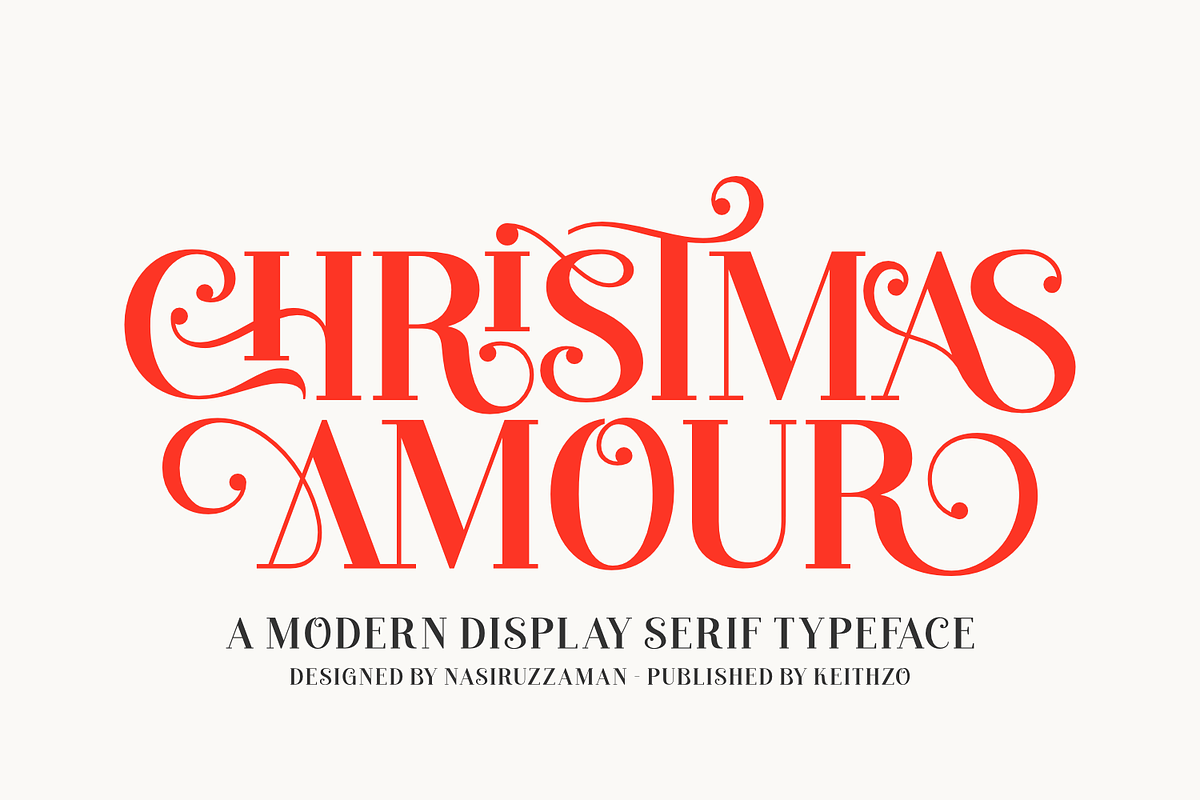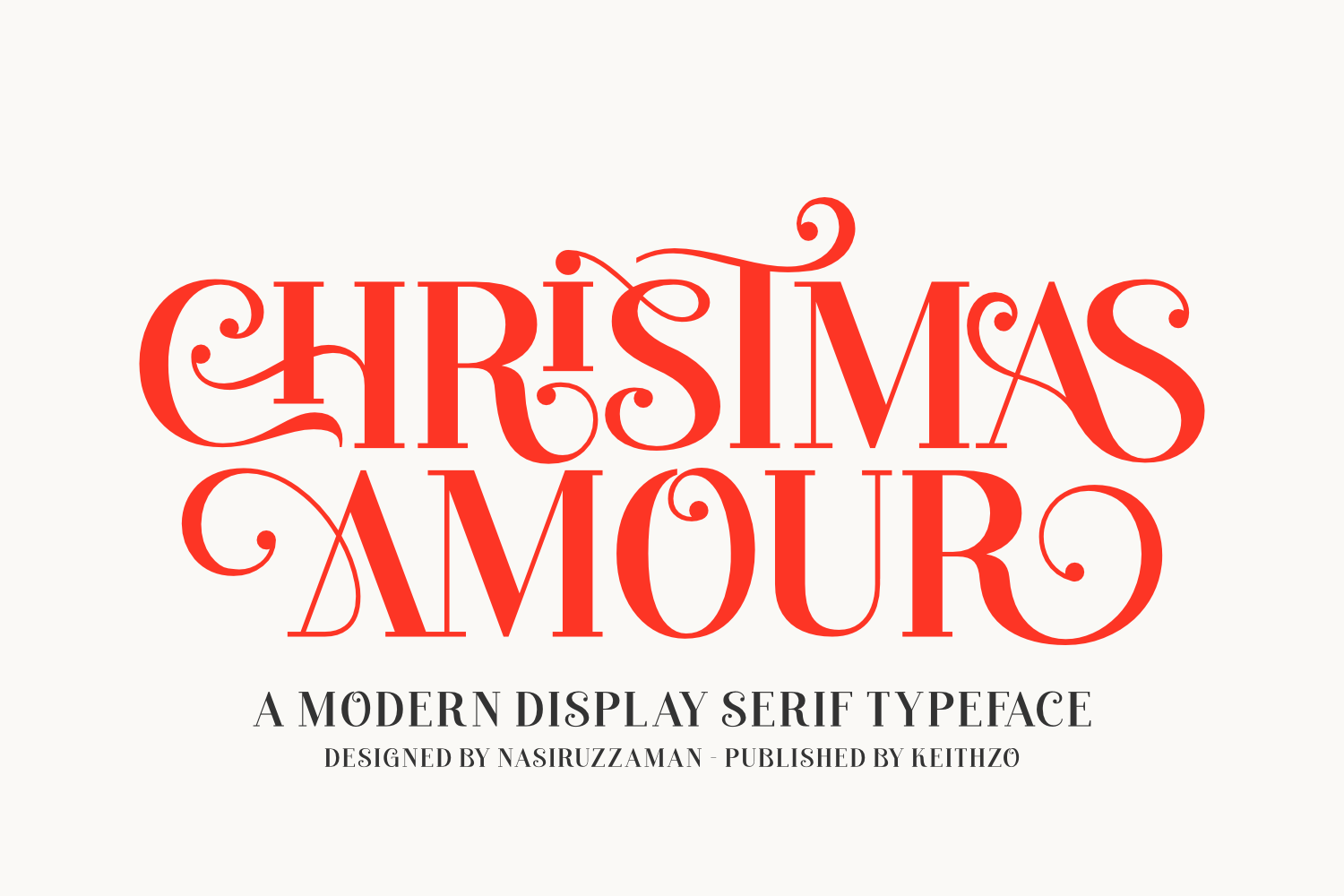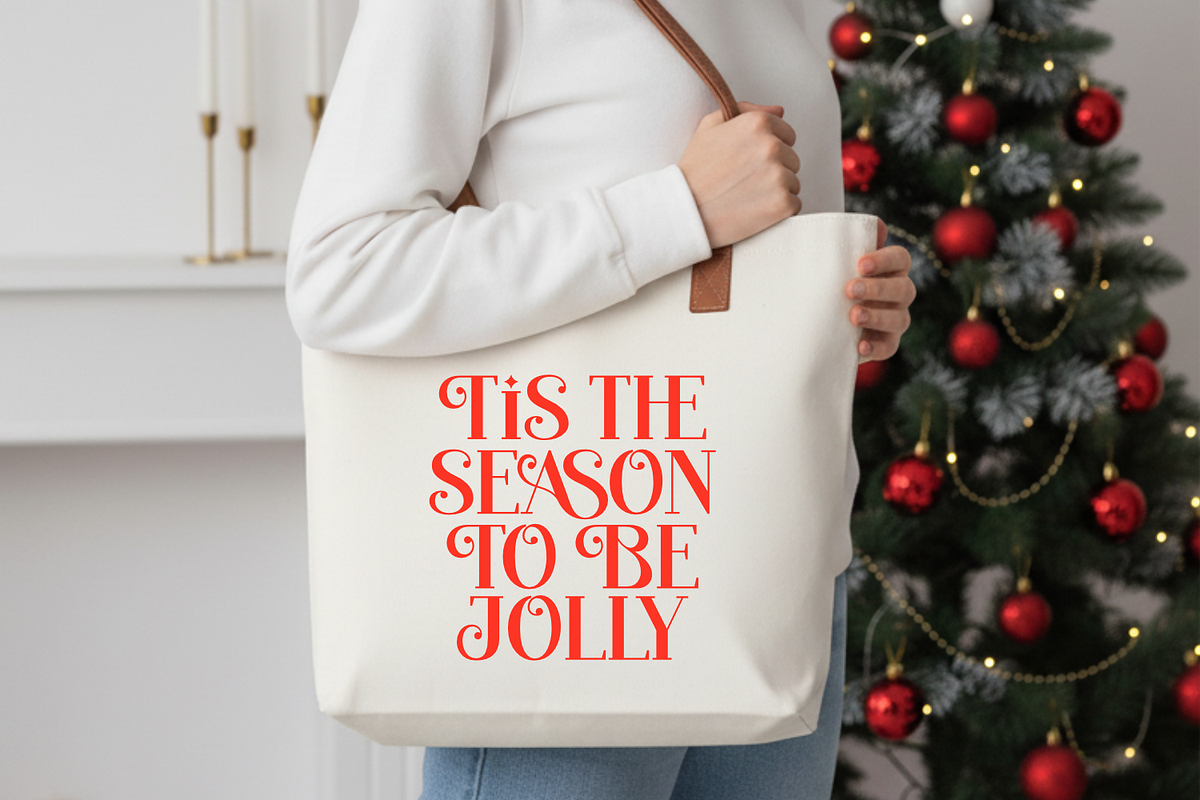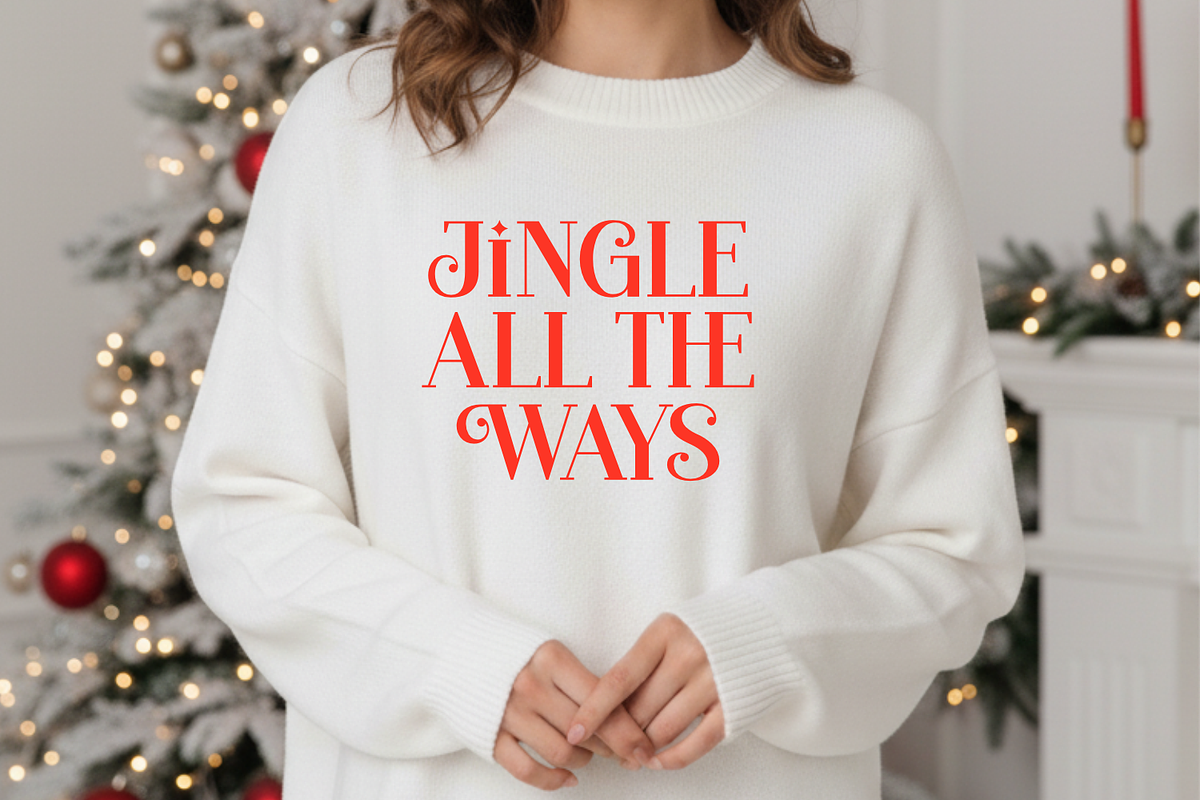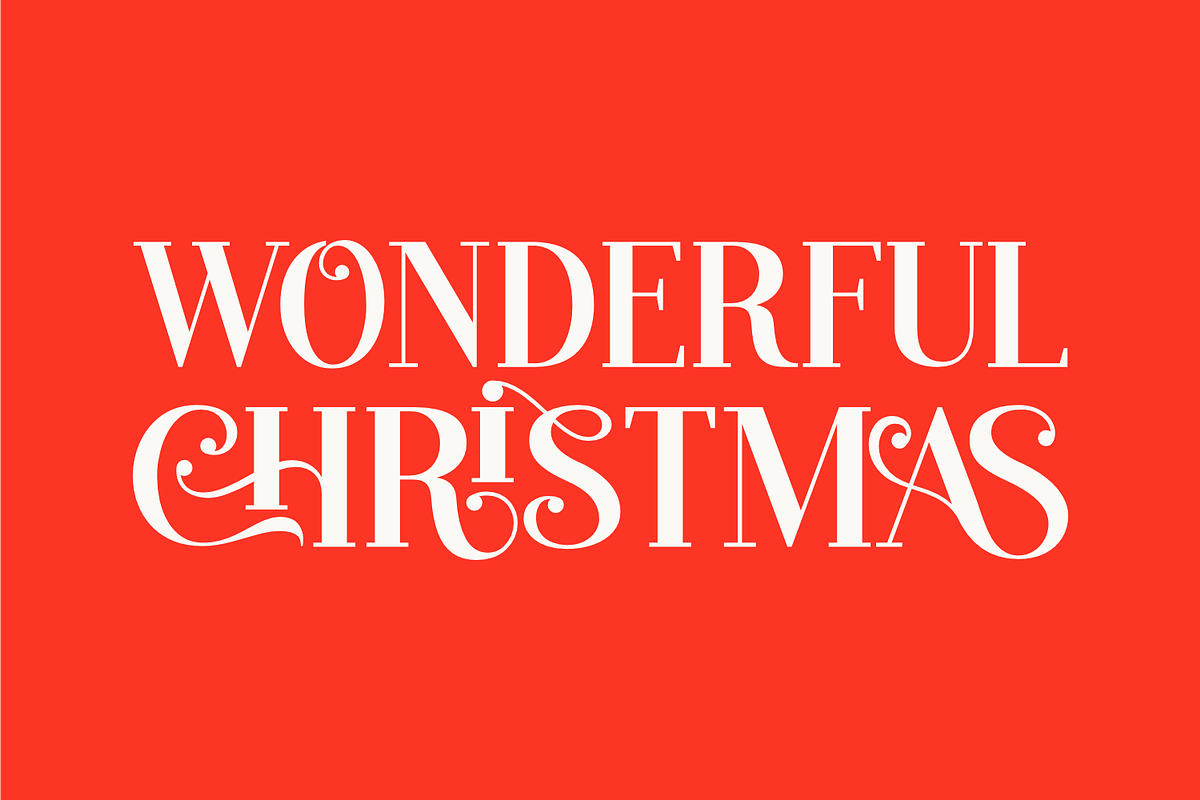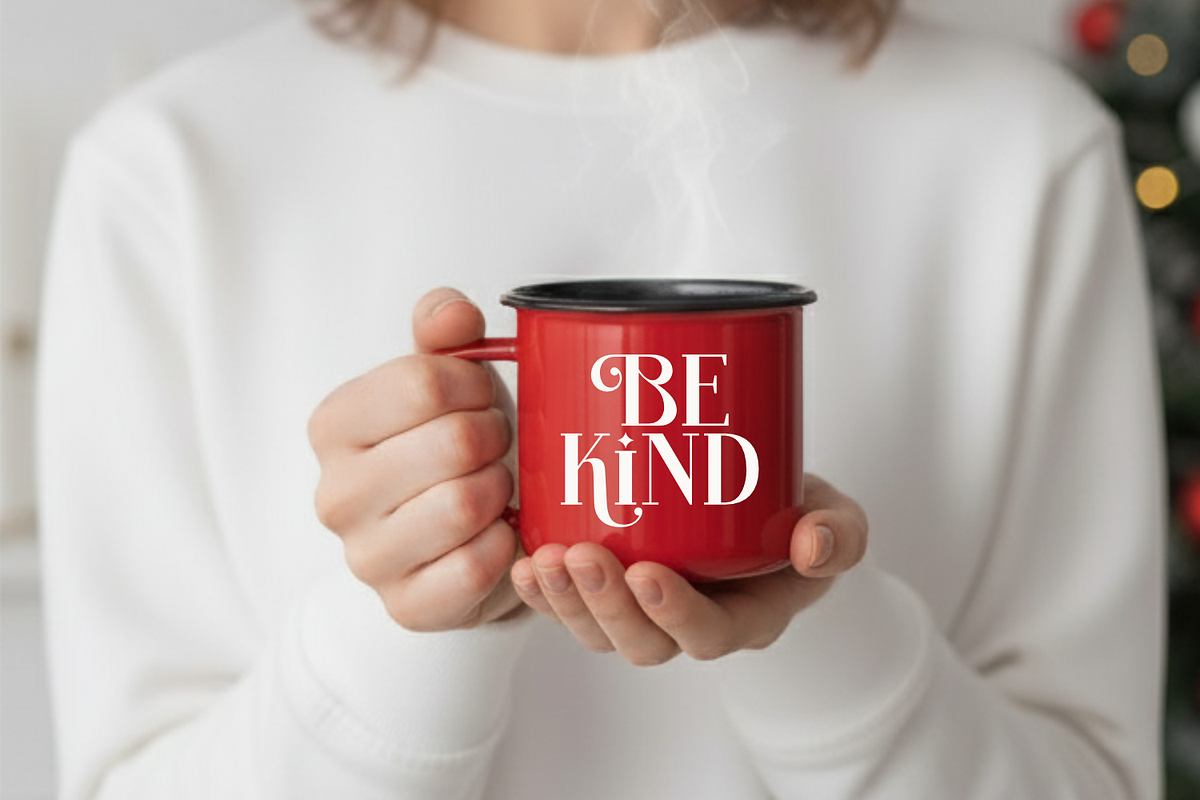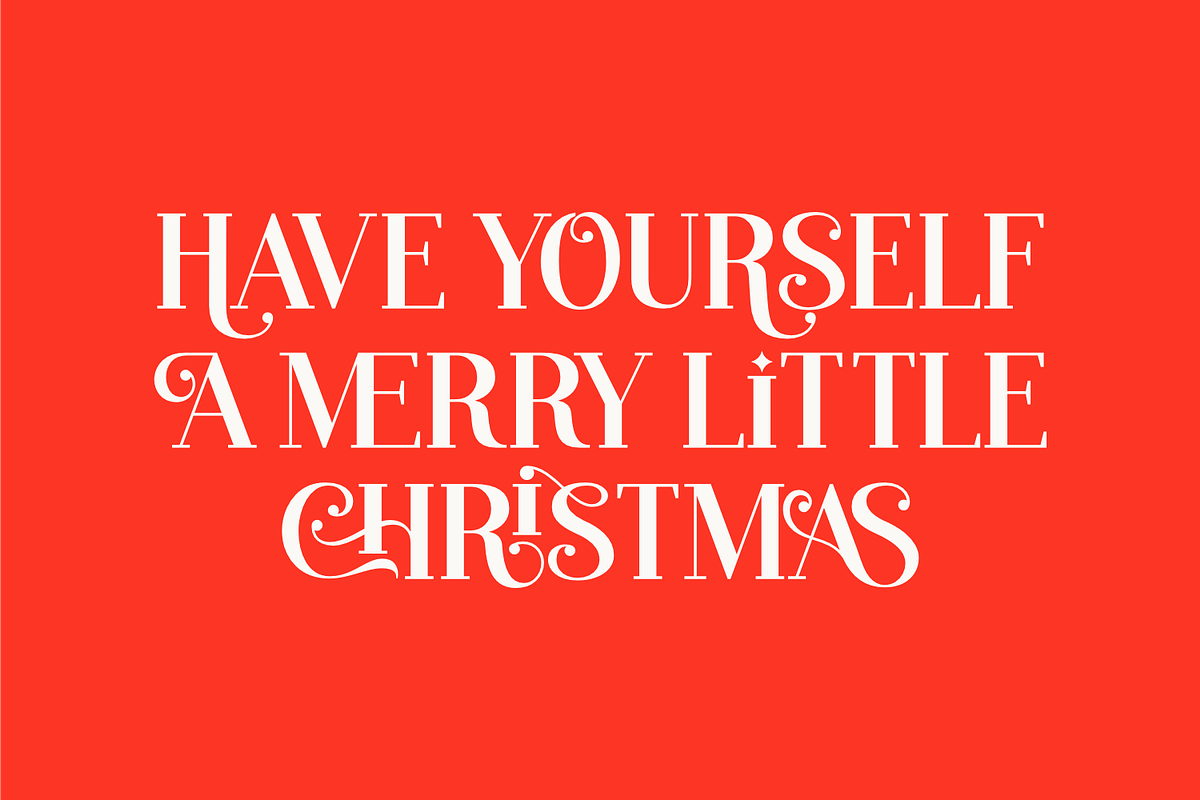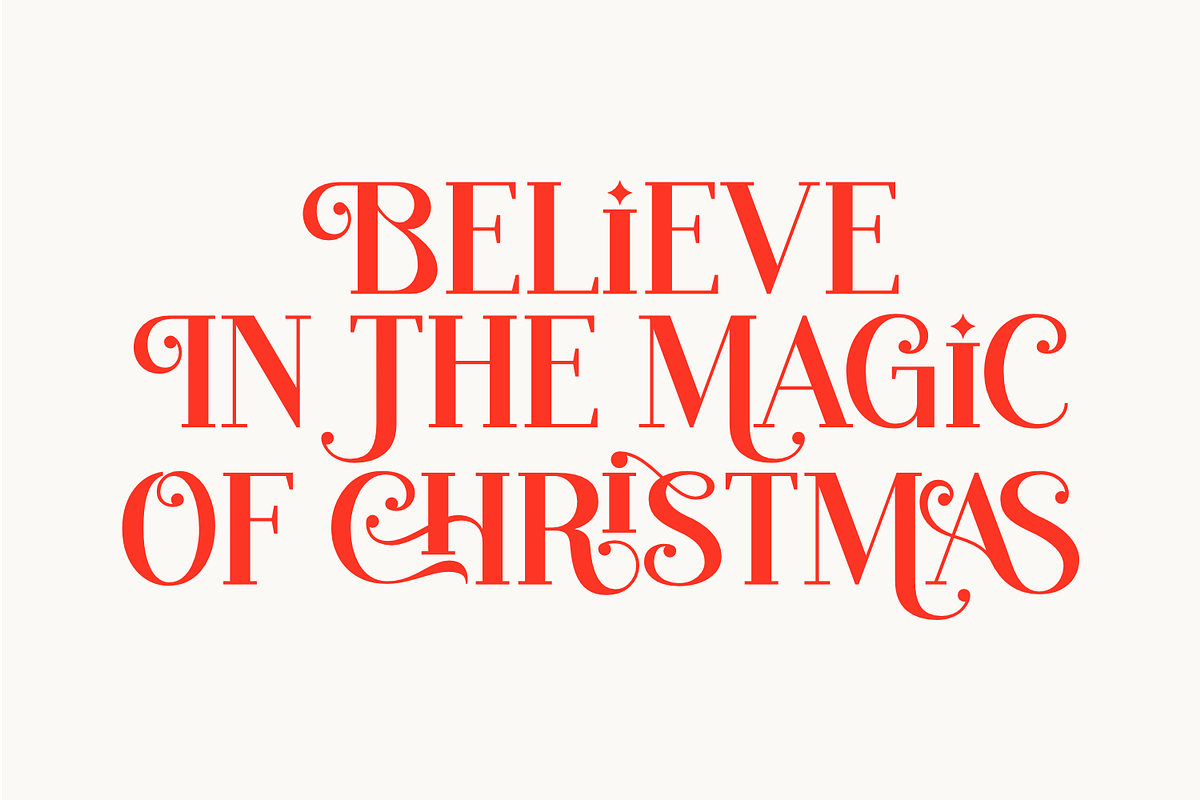
Christmas Amour - Christmas Font
Introducing Christmas Amour – a captivating blend of refinement and yuletide enchantment. Crafted as a display serif font, it has been artfully designed to infuse a radiant festive feel to every holiday-themed creation. Enriched with light-hearted swashes, charming ornaments and a sumptuous serif base, Christmas Amour seamlessly takes flight from Christmas greeting cards to your brand identity, social media posts, or seasonal packaging needs. Its distinctive fusion of timeless elegance and gleeful vigor transforms every expression into a strikingly magical message drenched in seasonal cheer. Notably, Christmas Amour arrives with PUA coding – guaranteeing hassle-free access to all glyphs, swashes and alternate characters, thus aiding in effortless customization of your inspired creations.